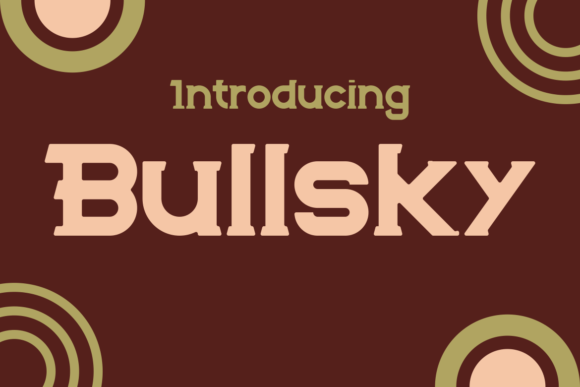
Embrace the grandeur of Bullsky, a majestic display font poised to capture hearts and transform your digital creations into captivating masterpieces. Its bold and commanding presence demands attention, leaving an indelible mark on every design it graces. Unleash your creativity with Bullsky, and let your imagination soar to new heights.
With its unwavering strength and timeless elegance, Bullsky stands as a symbol of resilience and sophistication. Its carefully crafted curves command attention, effortlessly conveying messages of power, determination, and unwavering resolve. Whether crafting logos, headlines, or captivating social media posts, Bullsky will leave an unforgettable impression, forging an unbreakable bond between your brand and your audience.
Immerse yourself in the boundless possibilities that Bullsky presents. Its versatility knows no limits, effortlessly adapting to a myriad of projects, from elegant invitations to eye-catching posters. Let Bullsky be your guiding light as you embark on a creative journey, leaving a trail of brilliance in your wake.
Make Bullsky your font of choice, and watch as your designs blossom into works of art. Let its commanding presence elevate your brand, leaving a lasting impression that resonates with your audience. Seize the opportunity to make a statement, to stand out from the crowd, and to leave an enduring legacy of creativity.